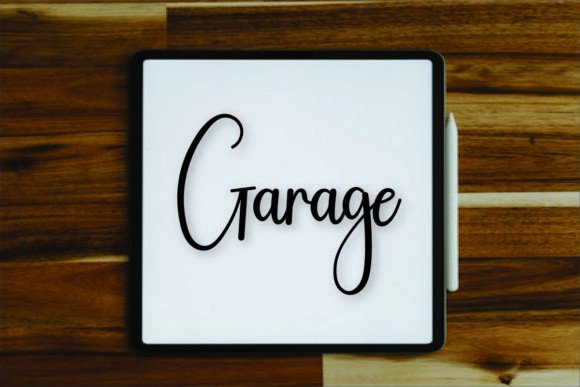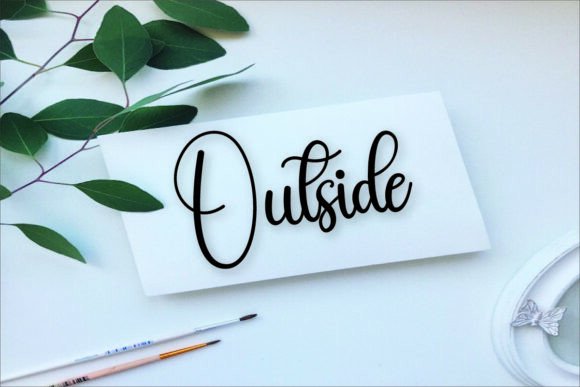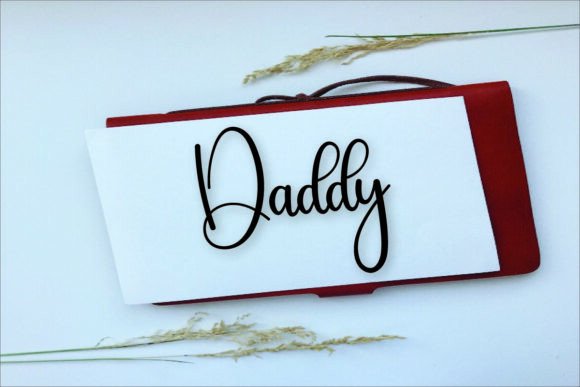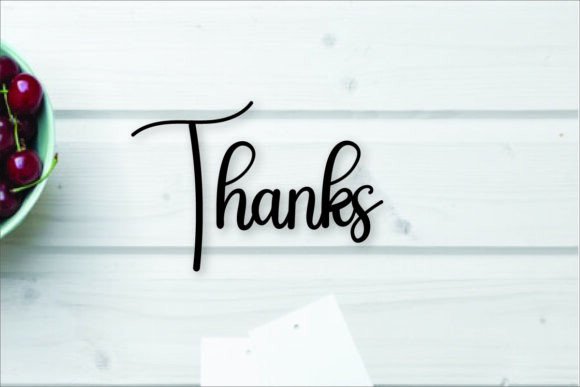
Introducing Fairplay Font: Elevate Your Designs with Elegance and Sophistication
In the world of typography, a well-crafted font can make all the difference in elevating your designs from ordinary to extraordinary. For designers and crafters seeking to add a touch of elegance and sophistication to their work, Fairplay Font is an exceptional choice. This stylish and incredibly elegant handwritten font is perfect for a variety of design projects, including wedding invitations, thank you cards, quotes, greeting cards, logos, business cards, and more.
The Characteristics of Fairplay Font
Fairplay Font boasts a unique, handwritten aesthetic that exudes refinement and poise. Its elegant strokes and beautiful letterforms make it an ideal choice for designs that require a personal touch. The font’s stylish appearance is sure to captivate your audience and leave a lasting impression. Whether you’re working on a wedding invitation, a logo, or a greeting card, Fairplay Font is sure to add a level of sophistication and elegance that sets your design apart.
One of the standout features of Fairplay Font is its versatility. This font can be used across a wide range of design projects, from formal events like weddings and galas to more casual applications like business cards and social media graphics. Its adaptability makes it an excellent addition to any designer’s toolkit, as it can be easily incorporated into various design styles and themes.
For designers specializing in wedding and event designs, Fairplay Font is a dream come true. Its elegant and sophisticated appearance makes it perfect for creating stunning wedding invitations, save-the-date cards, and other event-related materials. The font’s beautiful letterforms and flowing strokes evoke a sense of romance and luxury, making it an excellent choice for couples looking to make a lasting impression.
Adding a Personal Touch to Your Designs
Fairplay Font’s handwritten aesthetic adds a personal touch to any design, making it feel more approachable and engaging. This is particularly important for designers working on projects that require a human touch, such as greeting cards, thank you cards, and quotes. The font’s elegant appearance ensures that your designs feel both sophisticated and heartfelt.
Tips for Using Fairplay Font Effectively
To get the most out of Fairplay Font, consider the following tips:
- Pair Fairplay Font with a simple, sans-serif font to create a striking contrast.
- Use Fairplay Font as a headline font to add a touch of elegance to your design.
- Don’t be afraid to mix and match Fairplay Font with other fonts to create a unique look.
Fairplay Font is a stylish and elegant handwritten font that is sure to elevate your designs to new heights. Its versatility, beautiful letterforms, and flowing strokes make it an excellent choice for a wide range of design projects. Whether you’re a designer, crafter, or DIY enthusiast, Fairplay Font is an exceptional addition to your toolkit. So why wait? Download Fairplay Font today and start creating stunning designs that exude elegance and sophistication.
Key Features of Fairplay Font
- Stylish and elegant handwritten aesthetic
- Perfect for wedding invitations, thank you cards, quotes, greeting cards, logos, and more
- Versatile and adaptable for various design styles and themes
- Beautiful letterforms and flowing strokes
- Easy to read and visually appealing
With Fairplay Font, you can add a touch of elegance and sophistication to your designs, making them truly unforgettable. So why settle for ordinary fonts when you can have a font that truly stands out? Choose Fairplay Font for your next design project and experience the difference for yourself.